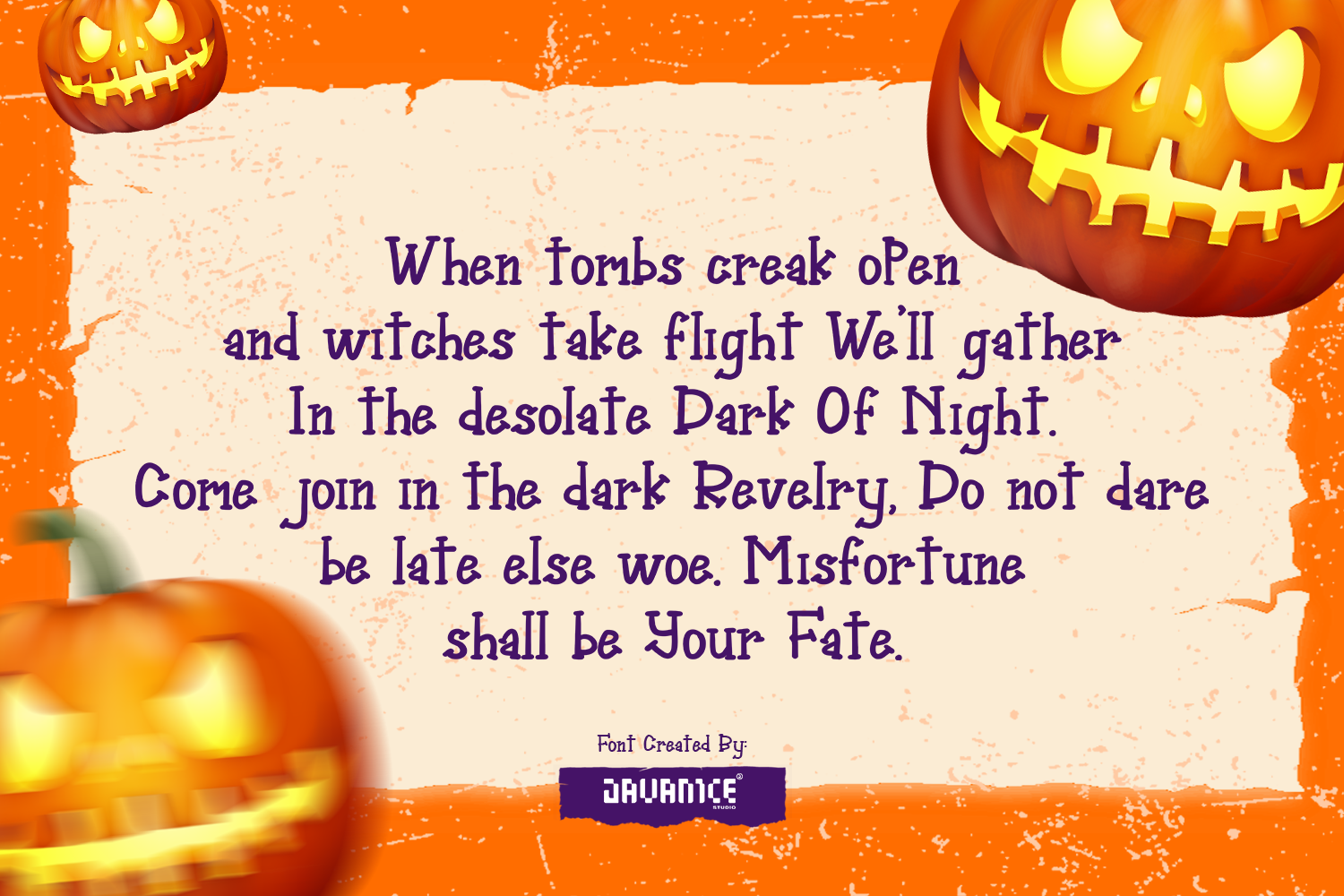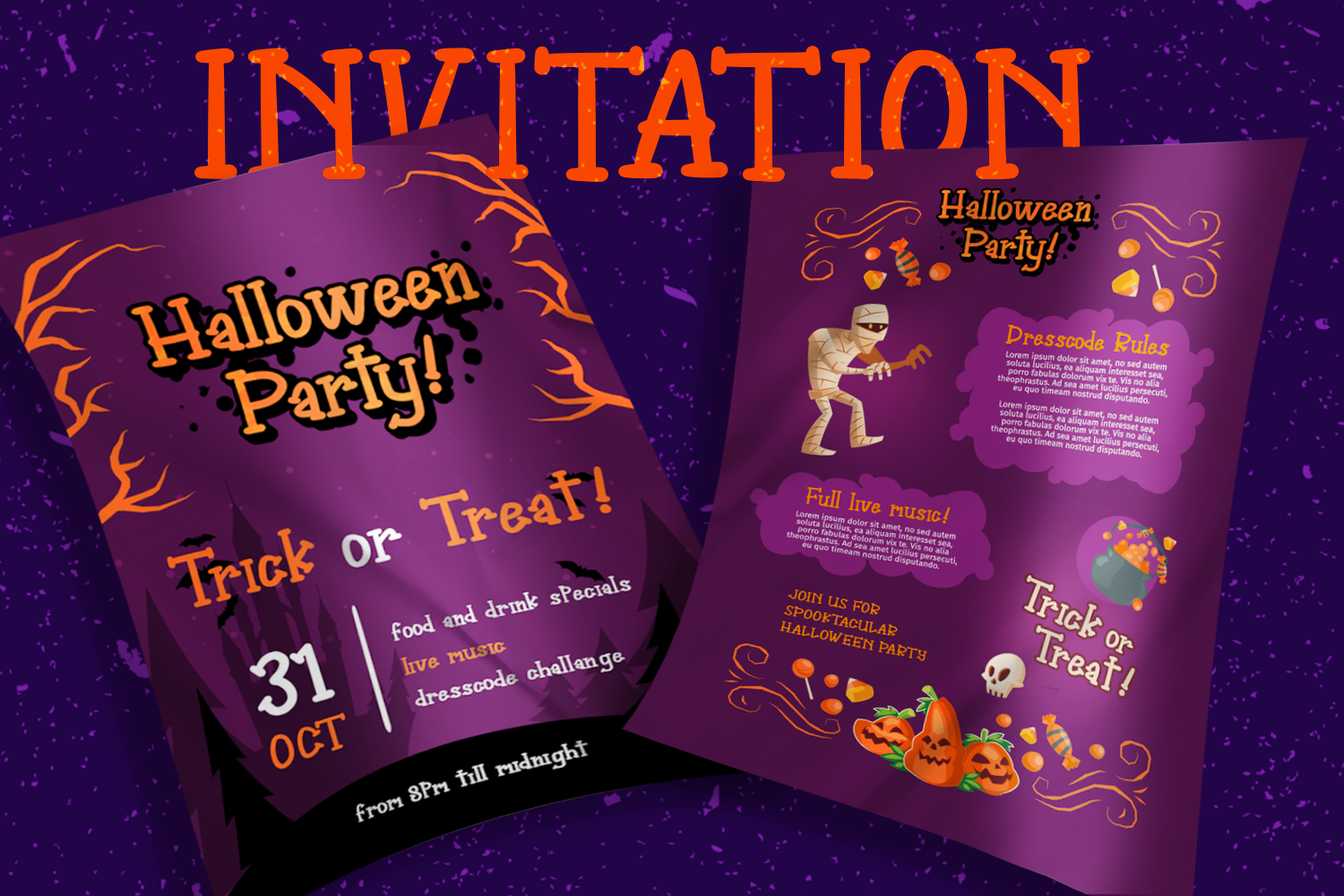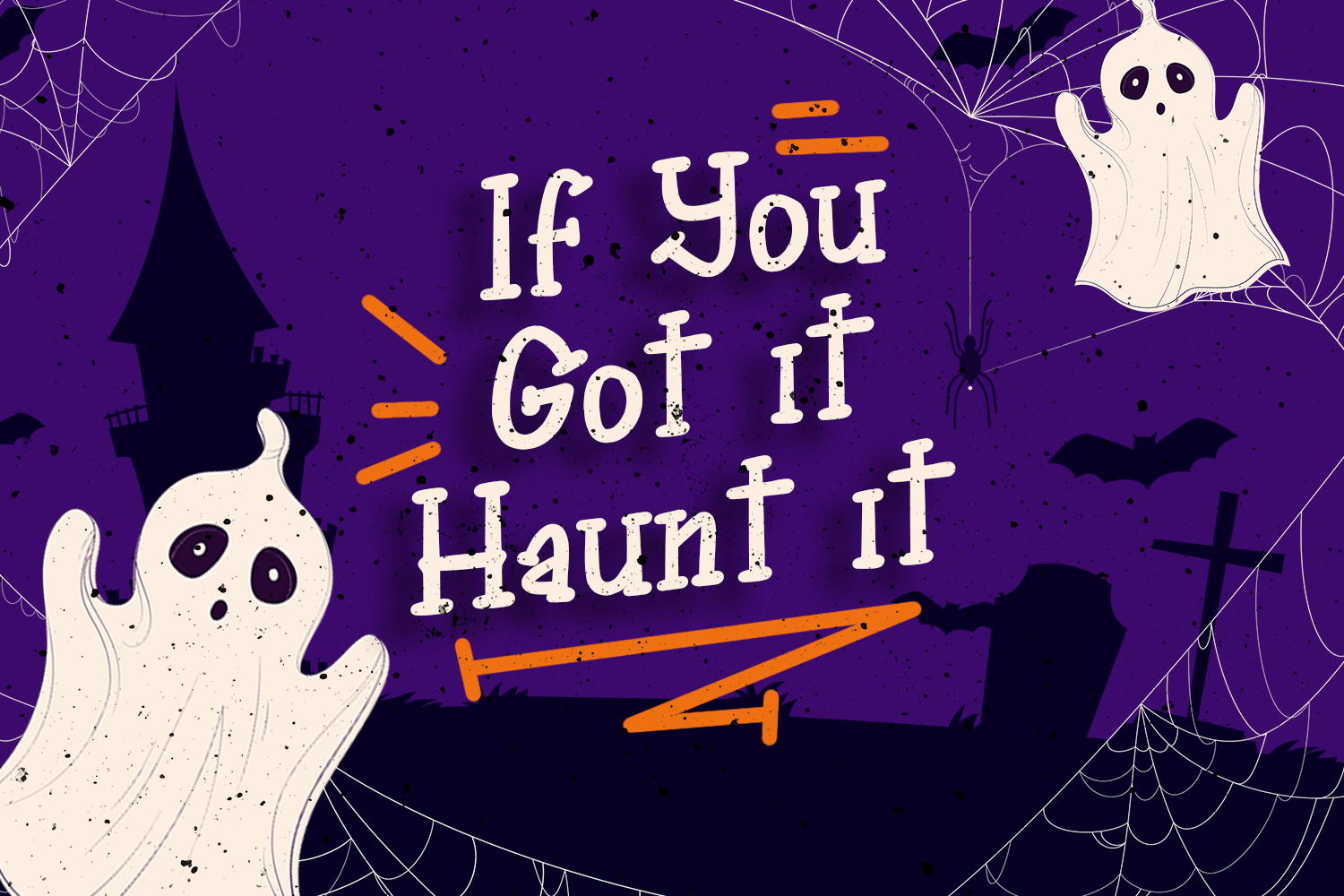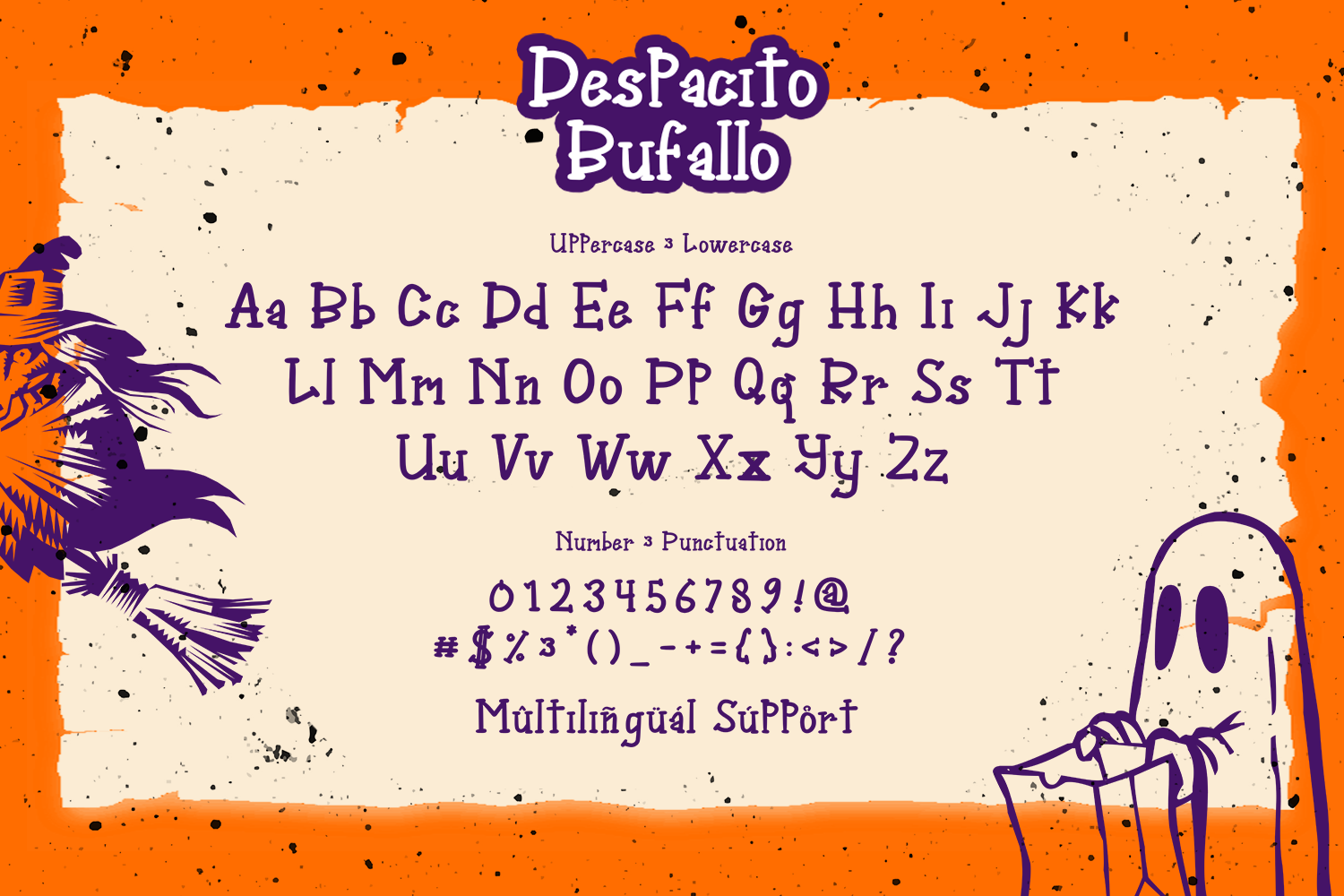
Despacito Bufallo Font
Despacito Bufallo Display Font is a display font. Despacito Bufallo is perfect for branding project, apparel, labels, magazines, books, greeting / wedding cards, packaging, fashion, make up, stationery, and any type of advertising purpose or just used to express words above the background.